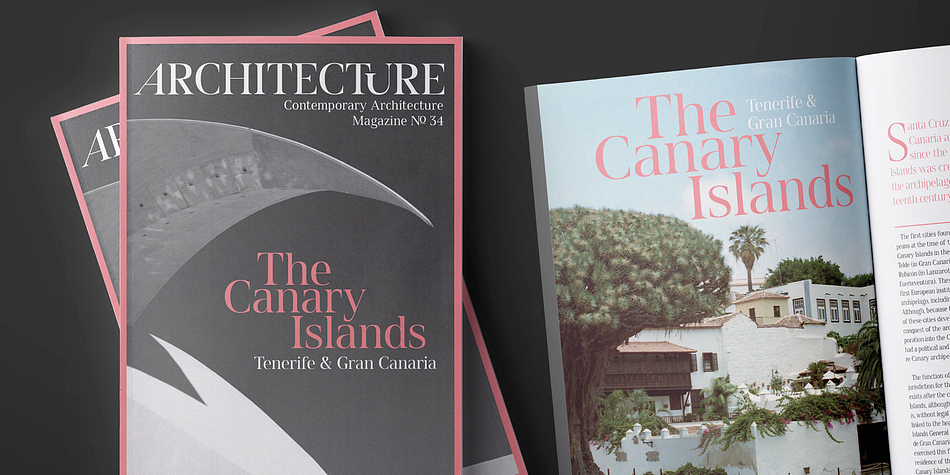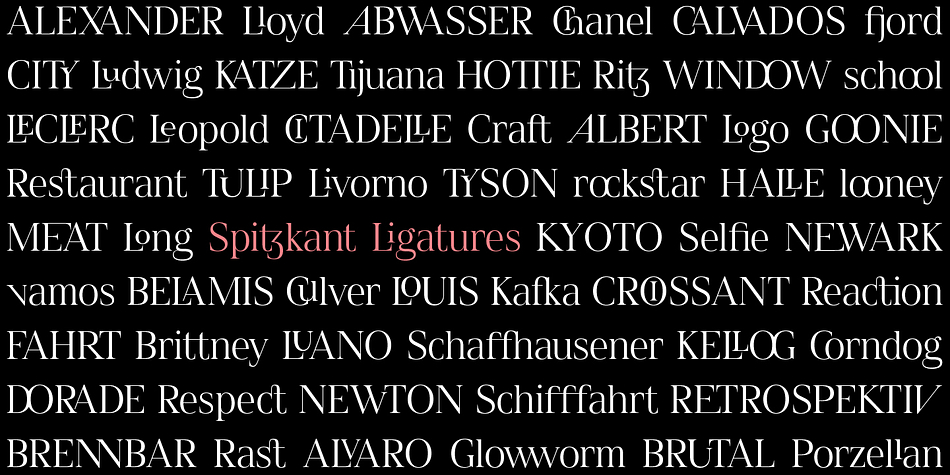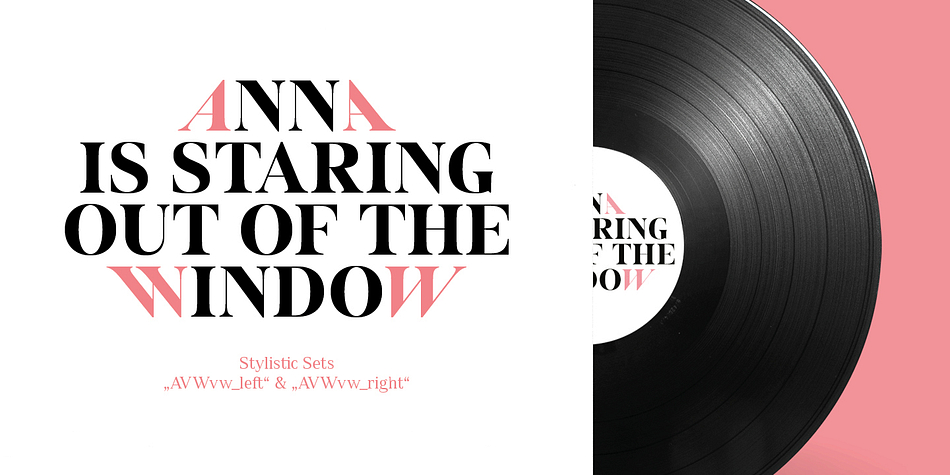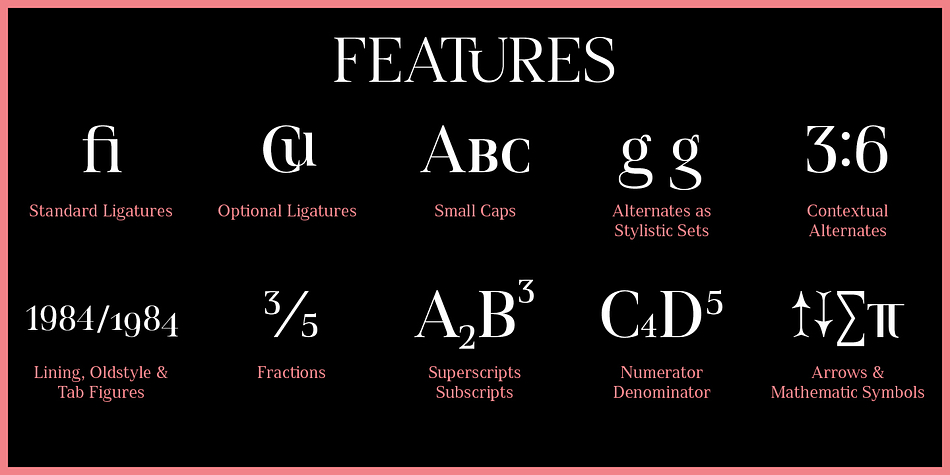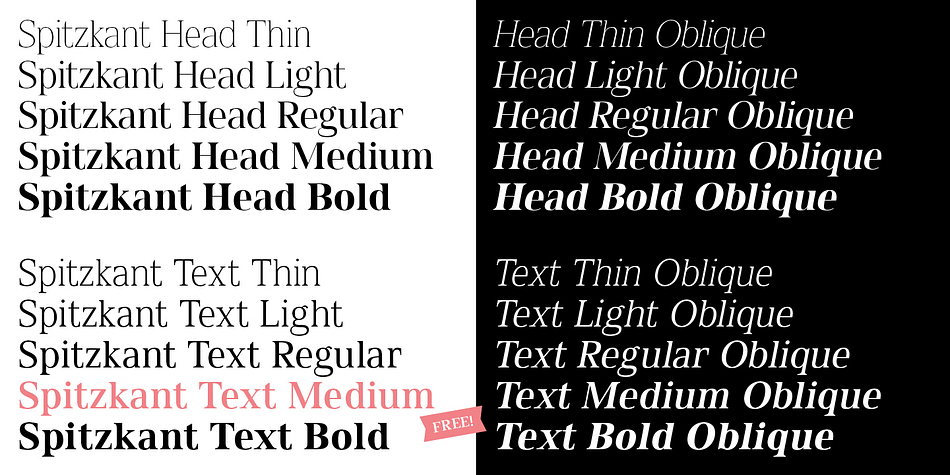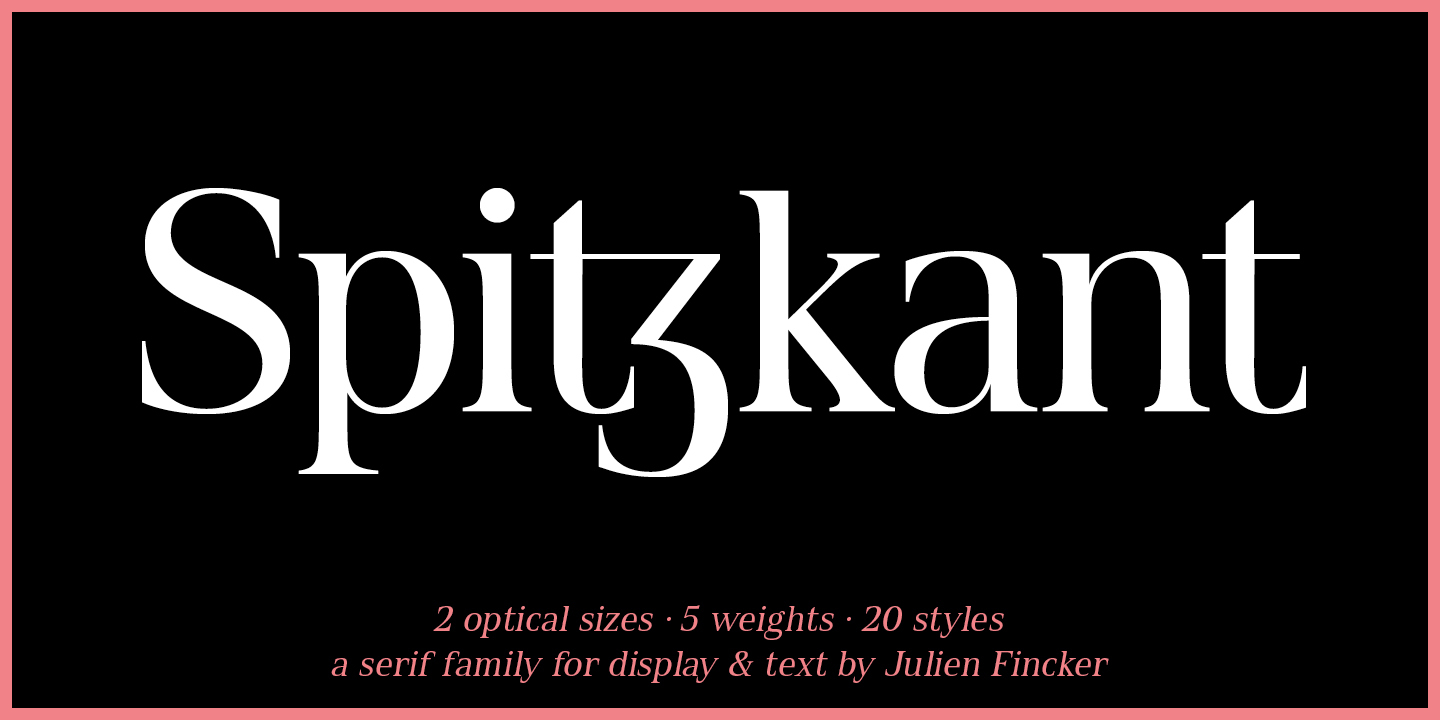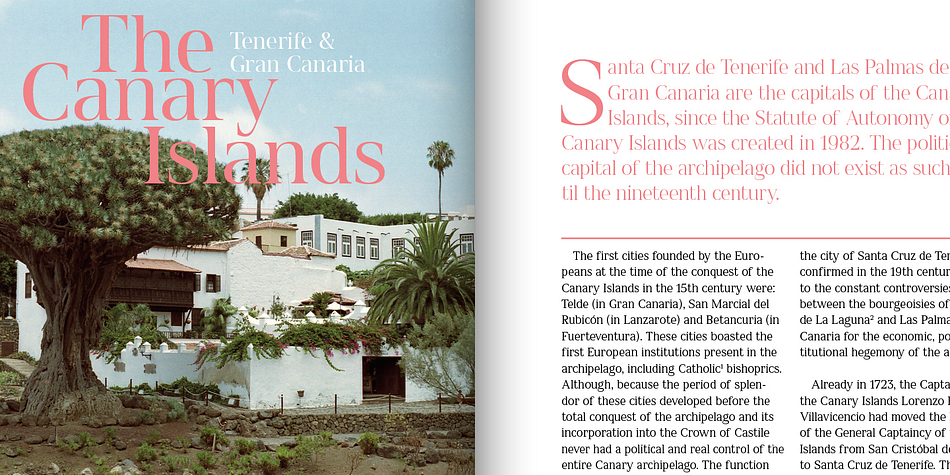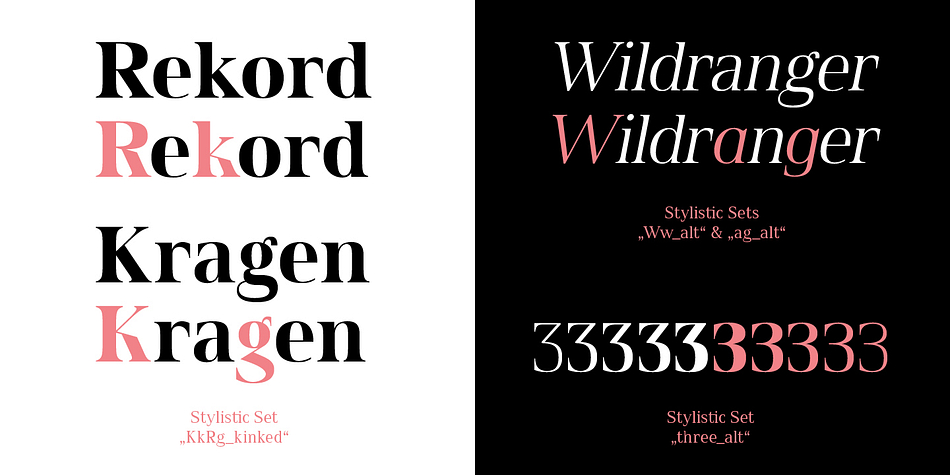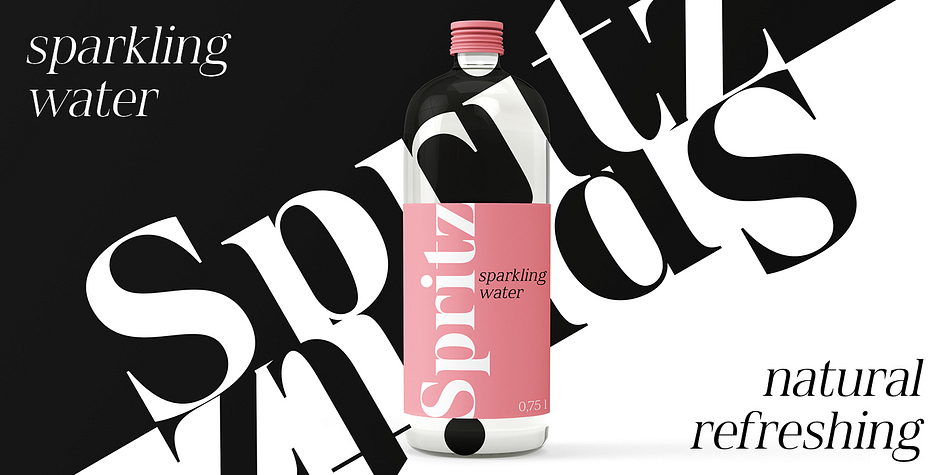
Spitzkant is a display serif and serif font family. This typeface has twenty styles and was published by Julien Fincker.
About the design:
Spitzkant is a serif typeface family that is characterized by strong contrasts. Pointed, sharp serifs and edges contrast with round and fine forms, making it very individual and expressive. This makes it particularly suitable for branding, editorial, packaging and advertising. The high-contrast display version has been complemented by a lower-contrast text version, making Spitzkant in combination suitable for both strong headlines and extensive body text. An allrounder that can be used for many purposes.
The Spitzkant Head and Text family has a total of 2 optical sizes, 5 weights and 20 styles, from thin to bold and matching italics. With over 850 characters, it covers over 200 Latin-based languages. It also has an extended set of currency symbols and a whole range of open type features. For example, there are alternative characters as Stylistic Sets, Small Caps, automatic fractions and many other features.
Ligatures:
Especially the extensive selection of ligatures (standard and optional) is a special feature which was an important part during the design process. With over 95 different ligatures there are many possibilities to give headlines and logos an individual touch.